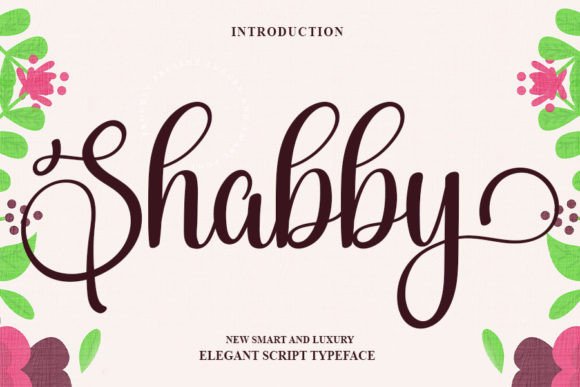
About Shabby Font
Introducing Shabby, a stylish handwritten font that exudes a contemporary atmosphere and impeccable form, drawing inspiration from timeless classic calligraphy. Balanced and varied, this font is meticulously designed to enhance the beauty of your projects, adding a touch of sophistication.
Shabby’s stylish and contemporary vibe makes it suitable for a wide range of creative applications. Whether you’re working on branding, invitations, posters, or any other design project, this font adapts seamlessly, bringing a sense of elegance to your work.
One of the standout features of Shabby is its PUA encoding, providing easy access to all the amazing glyphs and ligatures. This feature empowers you to fully explore and customize the font, allowing you to add unique details and flourishes to your designs effortlessly.
Envision Shabby elevating the beauty of your projects, whether it’s gracing elegant invitations or adding a touch of sophistication to your branding materials. The versatility of this font, coupled with its contemporary appeal, makes it a valuable asset for your creative endeavors.
In summary, Shabby is not just a font; it’s a stylish design element that brings contemporary elegance to your projects. Embrace its balanced and varied form confidently, knowing that the PUA encoding feature unlocks a world of creative possibilities. Let Shabby be the choice that enhances the visual appeal of your designs, making them truly stand out.